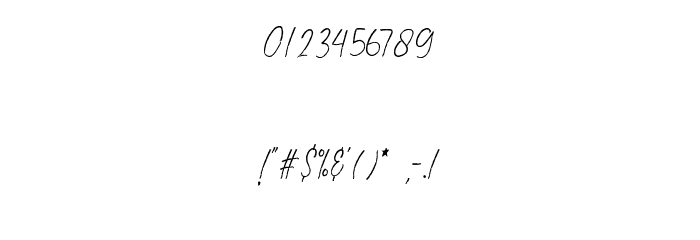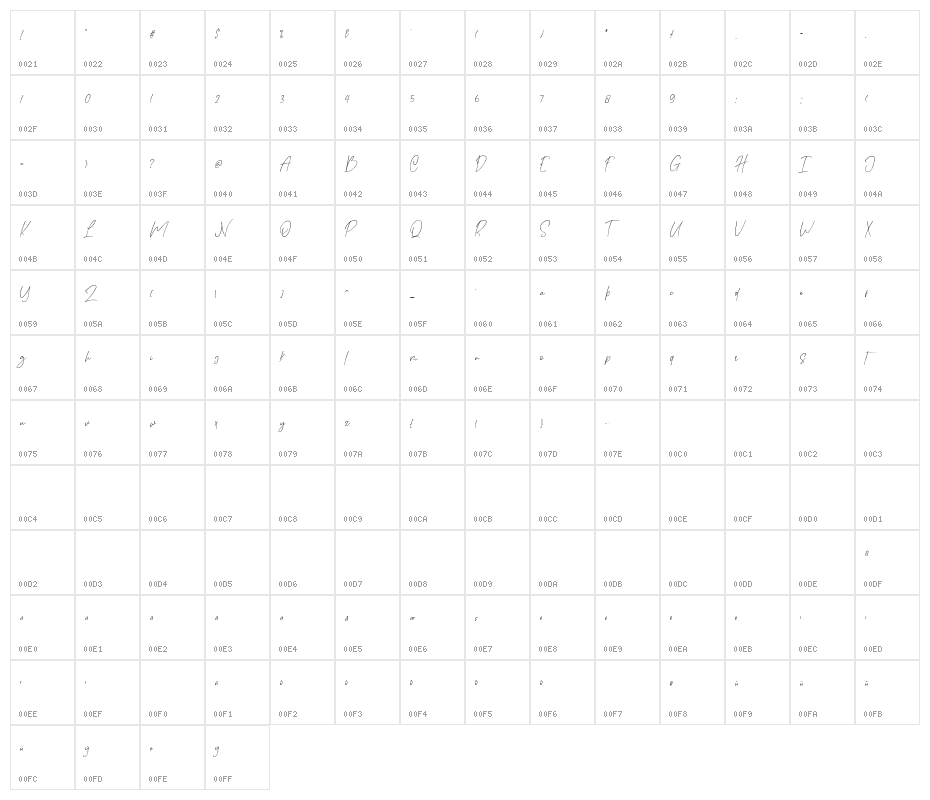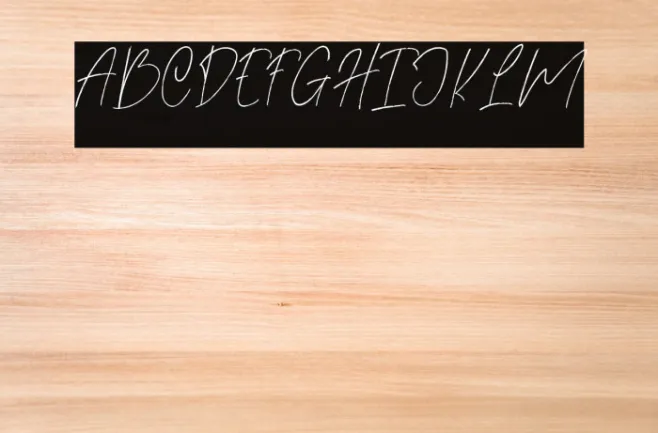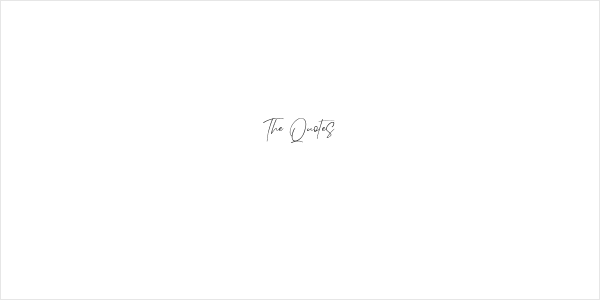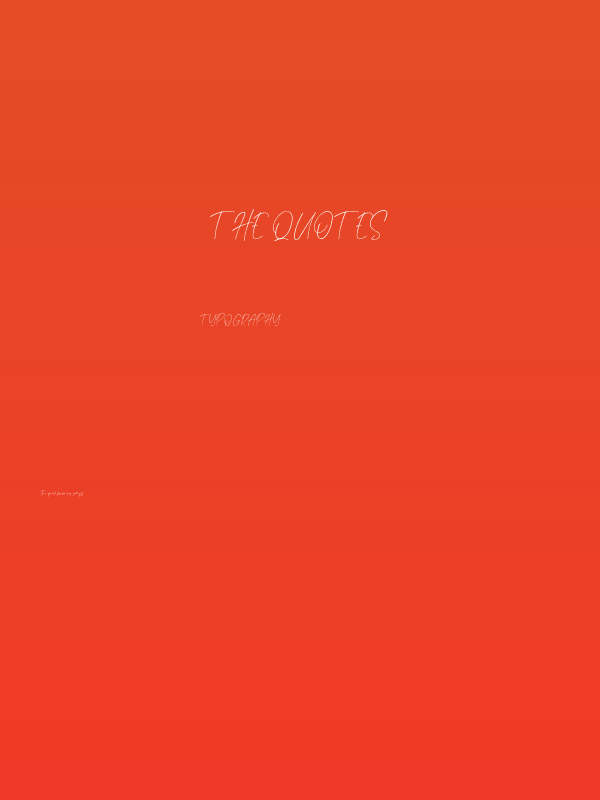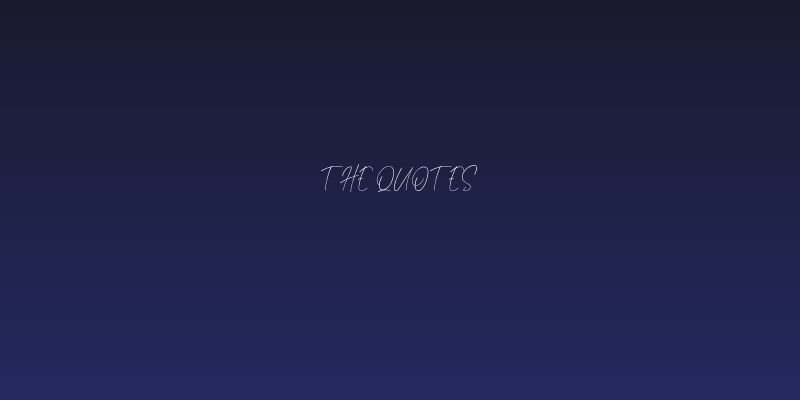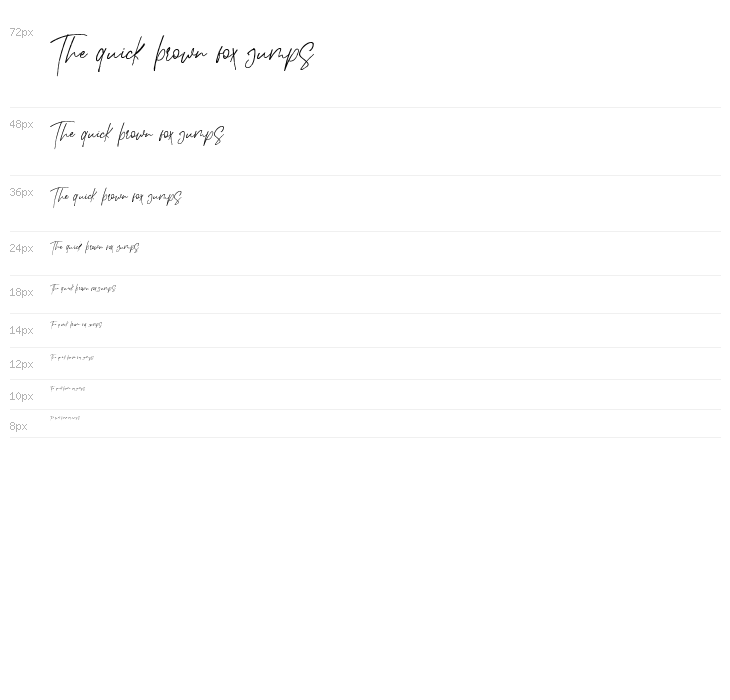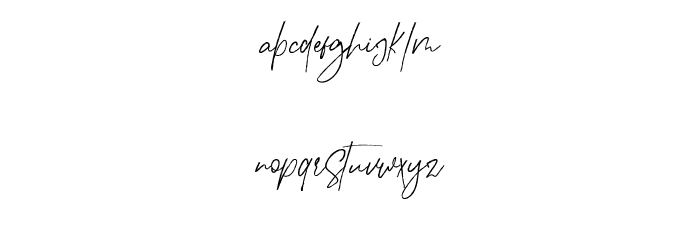
The Quotes Font
The Quotes Description
This font features a delicate and flowing script style, characterized by its elegant and handwritten appearance. The letters are connected with smooth, sweeping strokes that give it a fluid and natural look. The uppercase letters are slightly more structured, while the lowercase letters exhibit a more casual and freeform style. The numerals and special characters maintain the same graceful aesthetic, making it versatile for various uses. The overall design is airy and light, with a sense of sophistication and charm.